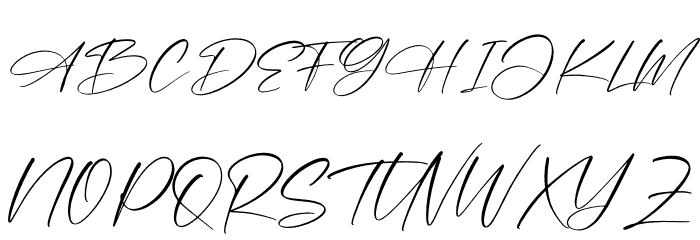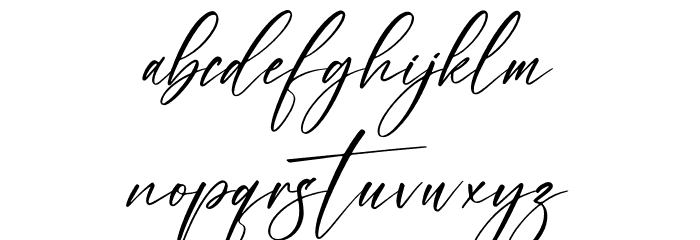
Aillisha Font
Aillisha Description
This font exudes a sense of elegance and fluidity, characterized by its cursive, handwritten style. The letters are connected with smooth, flowing strokes, giving it a natural and personal touch. The uppercase letters are slightly more embellished, while the lowercase letters maintain a consistent, graceful form. The numerals and special characters follow the same fluid style, ensuring uniformity across all characters. The font's overall appearance is both sophisticated and approachable, making it suitable for a variety of creative projects.
| Overall Style | Elegant, Personal |
| Proposed Projects | Ideal for wedding invitations, greeting cards, personal branding, and elegant logo designs. |